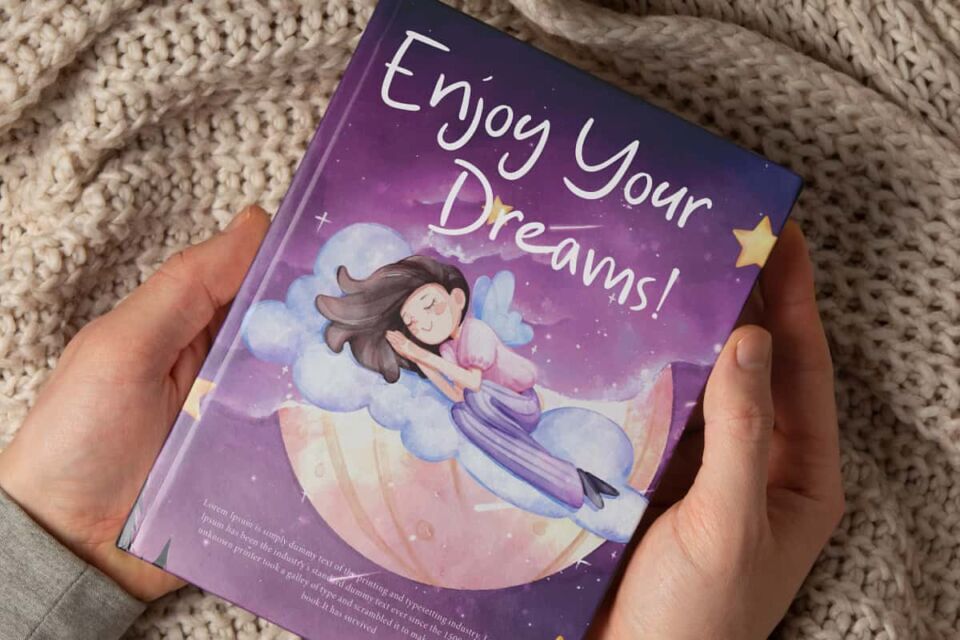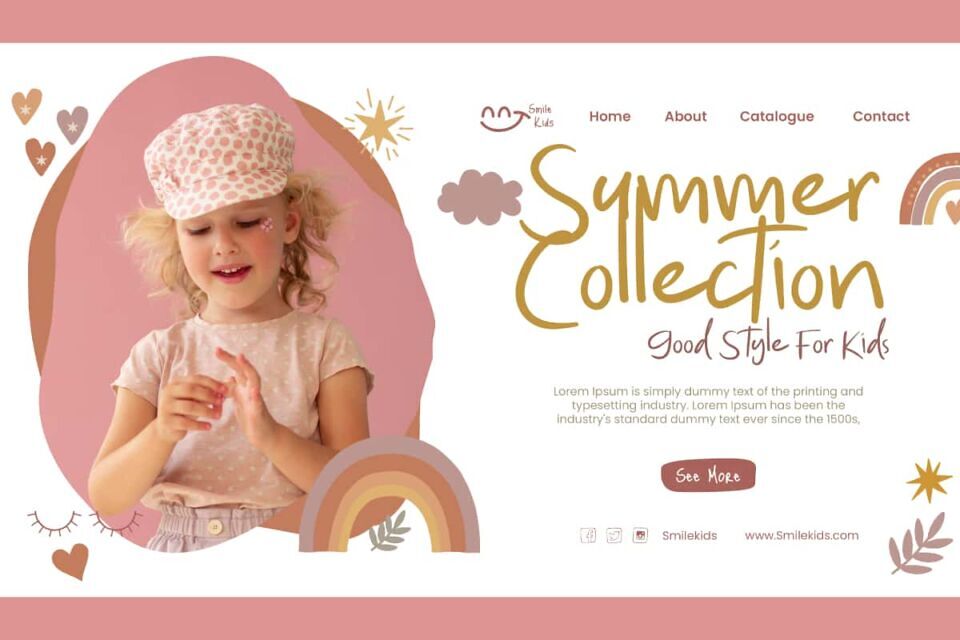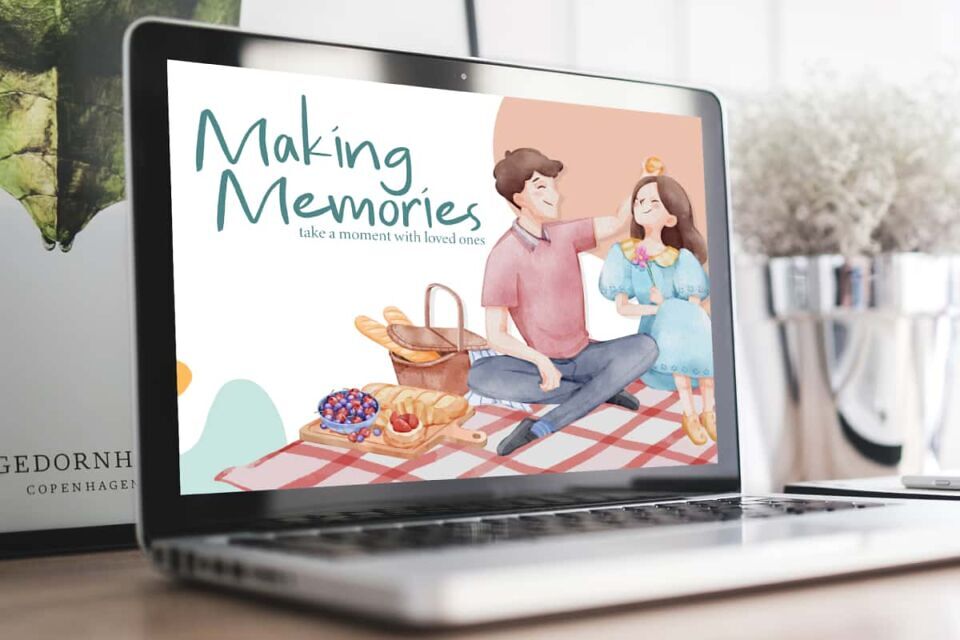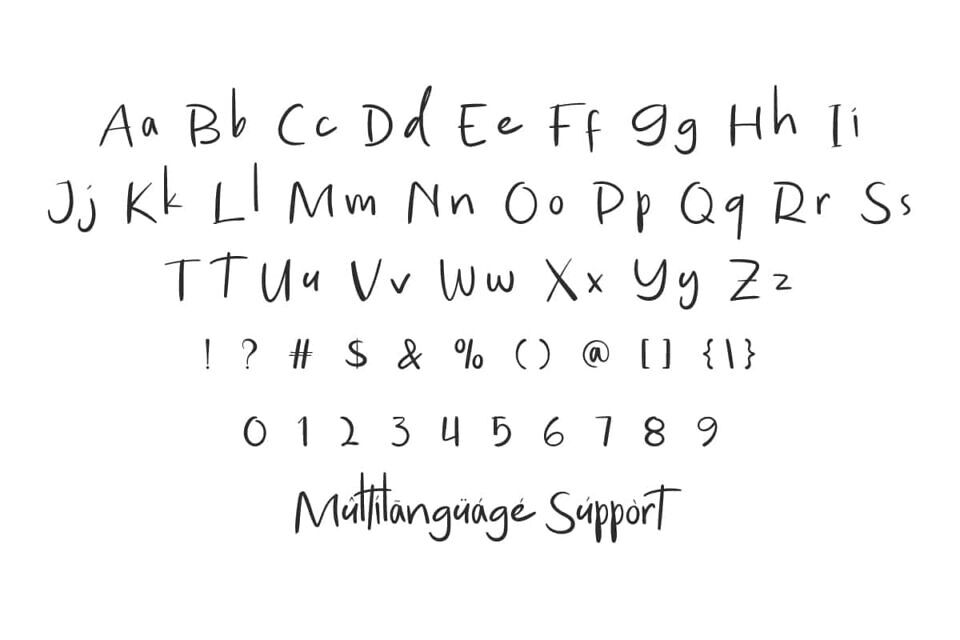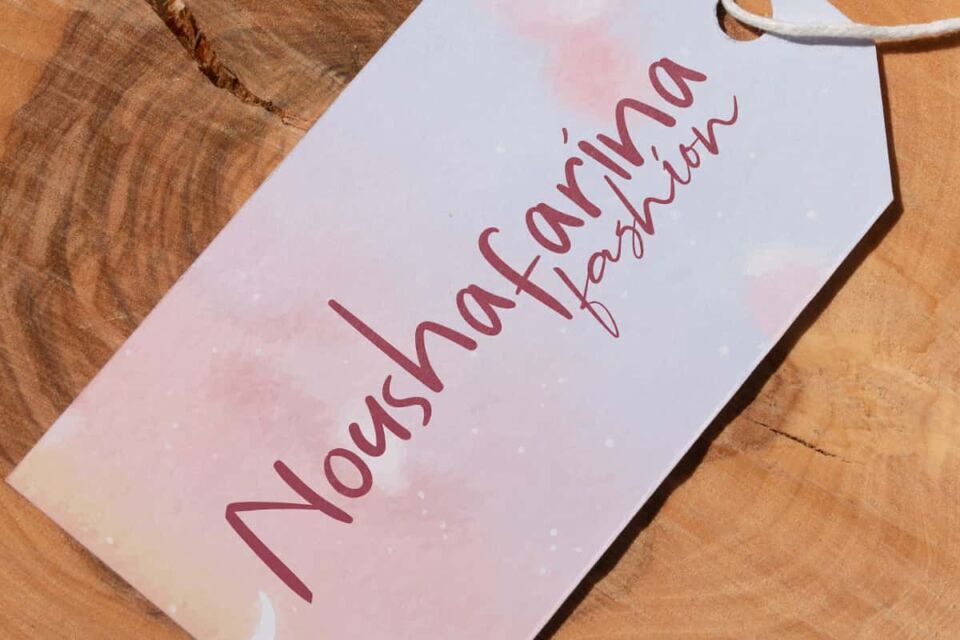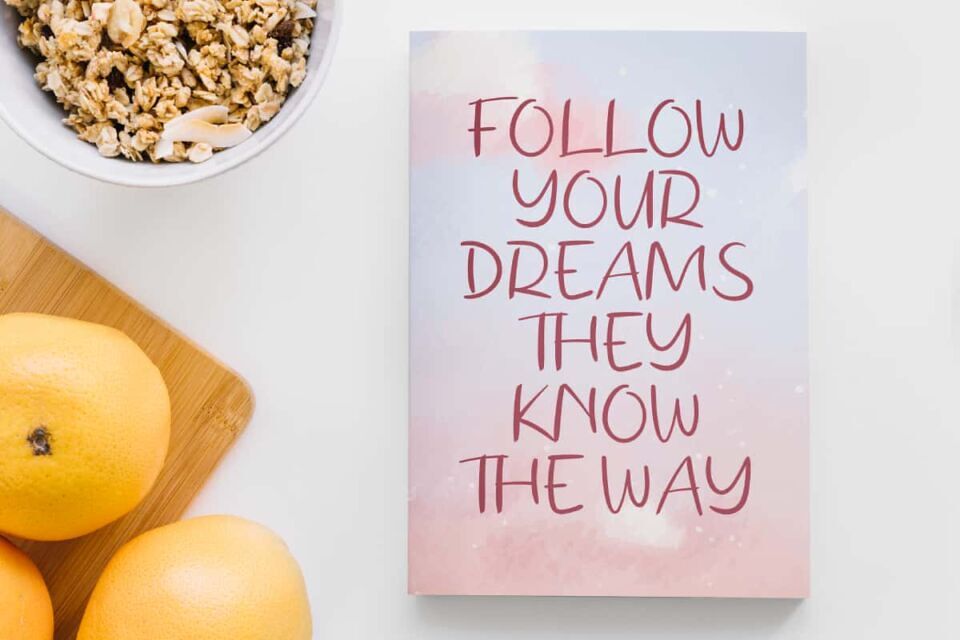
Mengejar Mimpi Font
Mengejar Mimpi is a cute and beautiful handwriting font that makes for a cheerful look in any design. It has a unique character design that can attract attention.